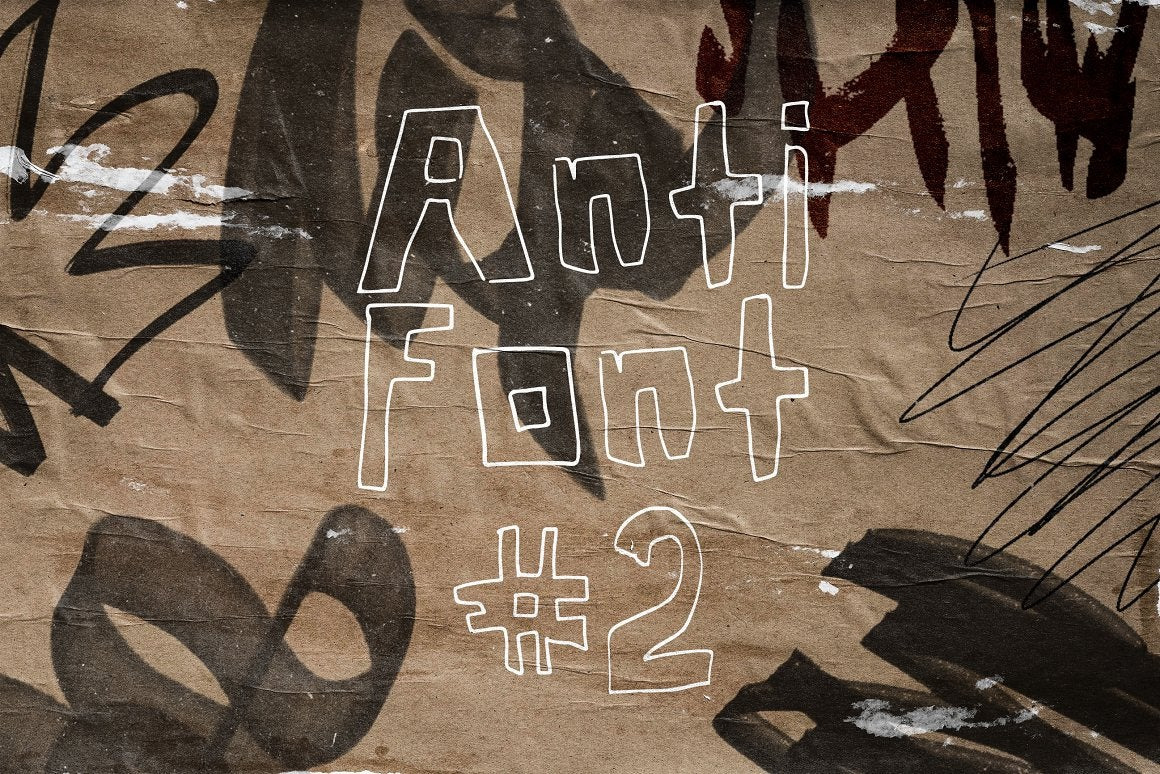
Anti-Font #2 Anti-Design Collection
Anti-Design Collection: Font #2
Anti-Font #2 is the second font of "Anti-Design" Pack. It represents the simplicity of chaos. Experimental, ugly, non-conventional graphic design is the new trend in the industry - eye-catching, super bold, and truly unique.